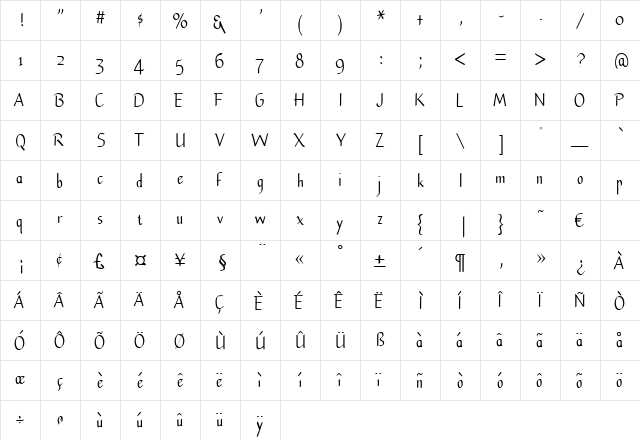
Uranus Regular
Design Context for Uranus Typeface
Uranus takes a measured approach to typography — its balanced proportions and neutral character make it a reliable workhorse for both digital and print work.